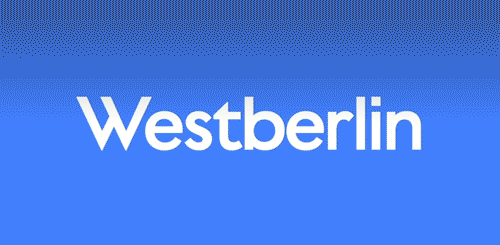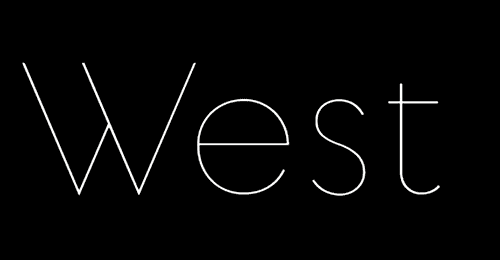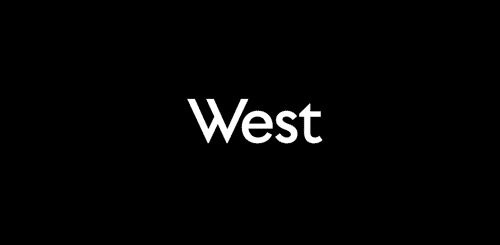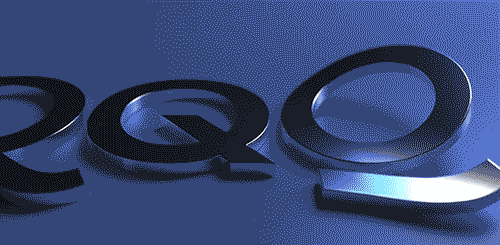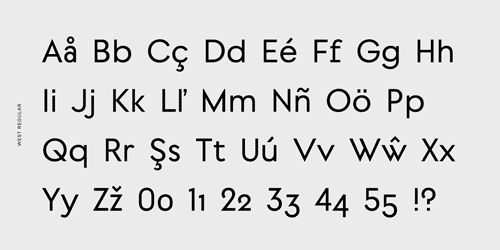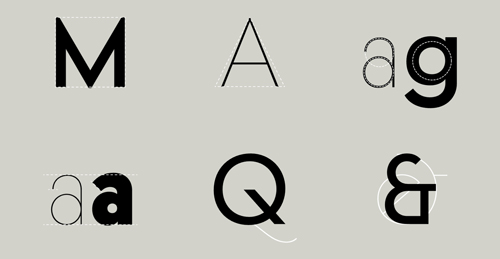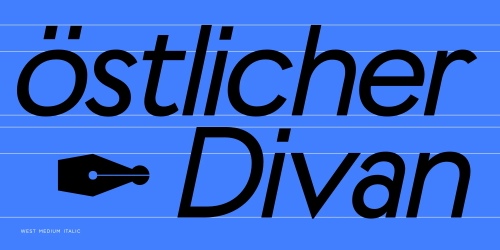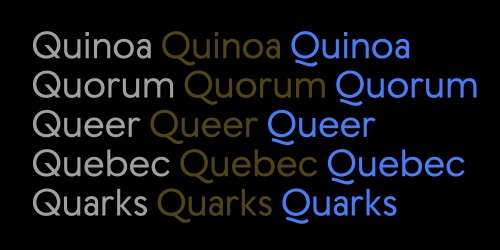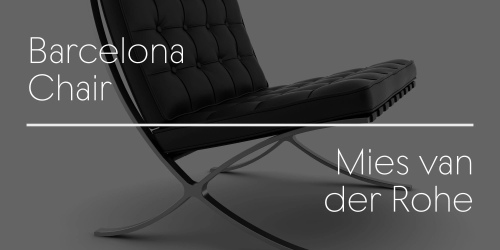
West Collection - 18 Styles + Variable Font Family
Geometric sans serifs concept reinterpreted in an original way!
• The following geometric shapes: square, circle and triangle, often fascinate creatives, not least those who design typefaces. It’s therefore hardly surprising that many fonts that are rooted in these classical forms look rather similar. Although the construction of West follows in the same geometric tradition, it achieves independence and its own distinct character. It has a simple yet sophisticated formula: visually similar forms do not repeat. Combining conciseness and pragmatism, it presents itself as timelessly modern but has its roots firmly planted in the practicality and functionality of classical modernism. West succeeds in reinterpreting the concept of geometric sans serifs in an original way. Behind its apparent lightness lie a multitude of different design decisions by its designer Daniel Perraudin.
• In order to maintain a harmonious canon of shapes and to do justice to its construction and symmetry, he varied individual letter widths (e.g. a narrow a and s in contrast to the wide b, n and J). He emphasized this unique character further with unusual glyphs such as W, t, f, 2, the alternative forms of the italic Q, the diagonal endings or angular dots. The characters beautifully oscillate between Art Deco influences (e.g. M, N, V, 3) and more technoid, monospaced influences of the nineties (e.g. f, alternative r) as well as the classical effect of fully reduced geometric grotesques (e.g. t, d, g, C, G, 9). All together, these design idiosyncrasies result in a compelling, contemporary mix.
• The range of West is also something rather special in the geometric genre: nine font weights ranging from Hairline to Black, matching italics as well as variable fonts that are all included in the Complete Package, giving the user full flexibility, which is perfect for branding and editorial projects.
• Thanks to the exceptionally open “un-compact” finish, West is recommended not only for display use but also for smaller text or for wayfinding or signage systems. This has already been put into practice for the wayfinding system in the Old Masters Gallery in Dresden, where individual icons were designed, which were then adopted into the present fonts and adapted to the respective stroke width.